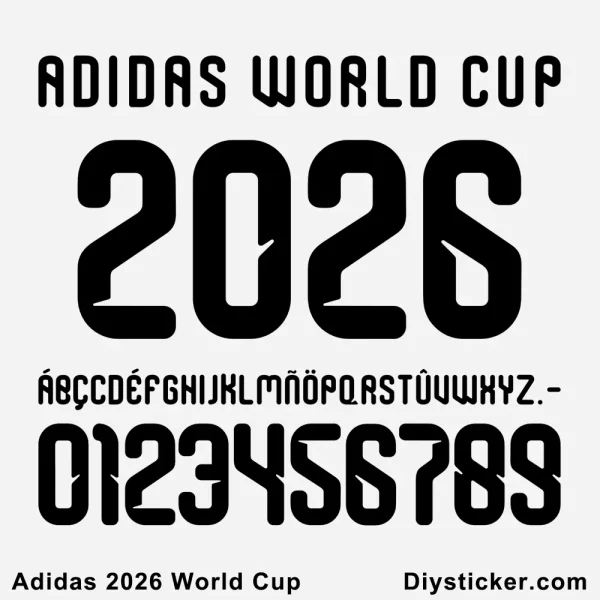
Create authentic 2026 World Cup designs with the official Adidas 2026 World Cup Font. This professionally crafted typeface will be used by all Adidas-sponsored national teams during the 2026 FIFA World Cup, making it perfect for creating genuine-looking tournament jerseys and merchandise.